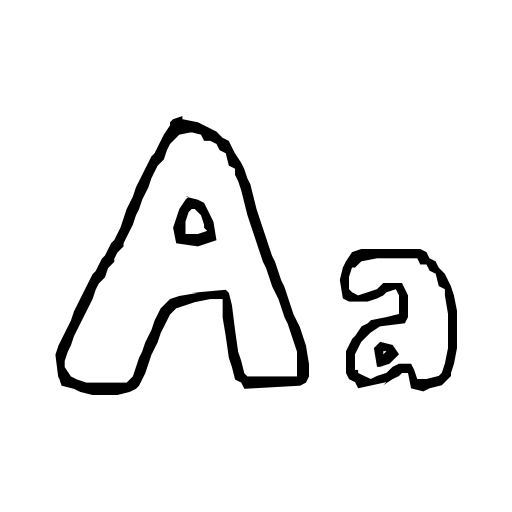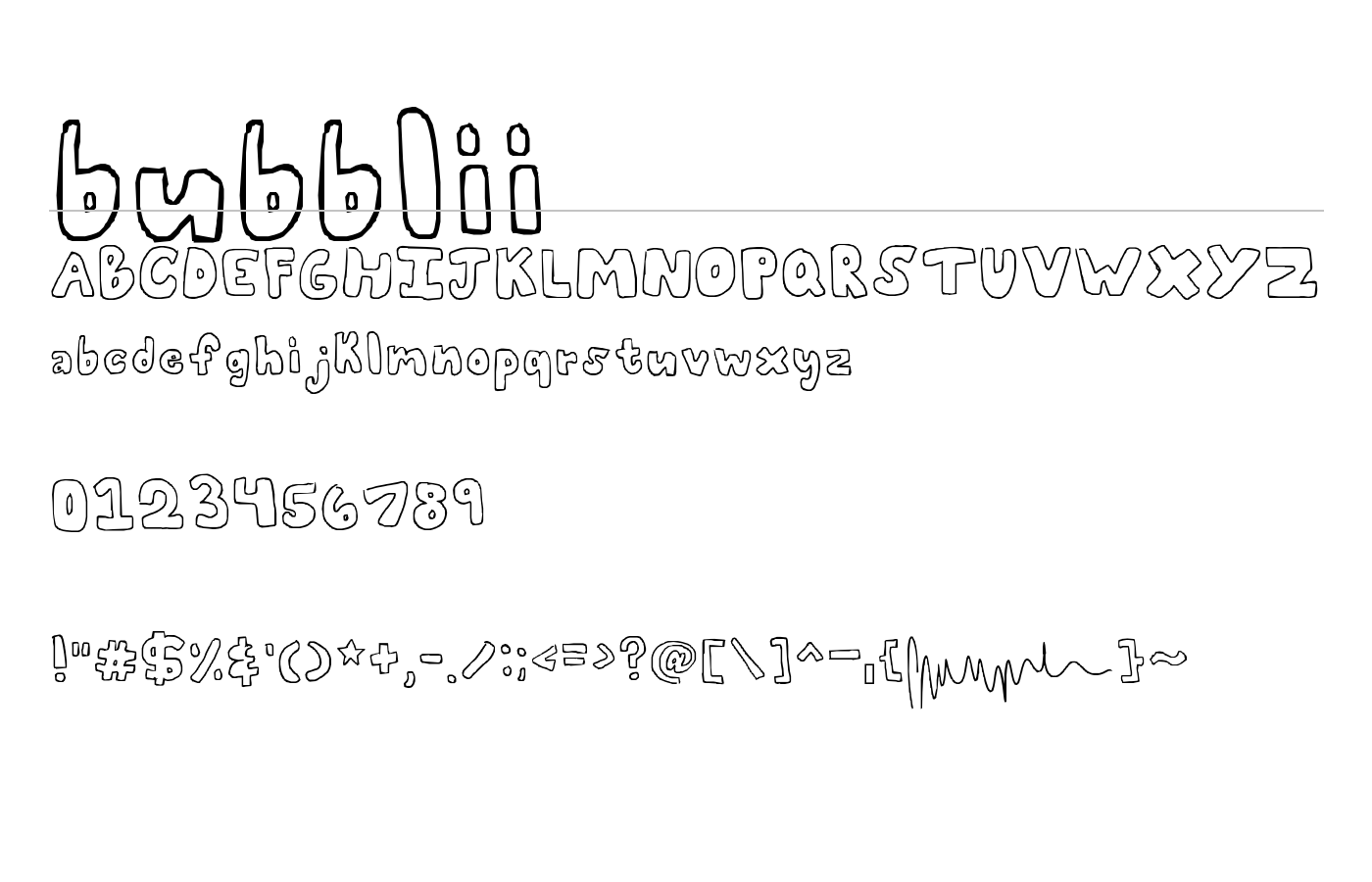
Bubblii is a playful, hand-drawn sans serif font with an informal and quirky style. Its uneven strokes, rounded shapes, and slightly irregular letterforms create a casual and fun vibe, making it perfect for children’s designs, creative projects, or any context seeking a friendly, approachable look. This font works well in posters, invitations, and branding that aims to convey warmth and personality.
bubblii Font
About bubblii Font